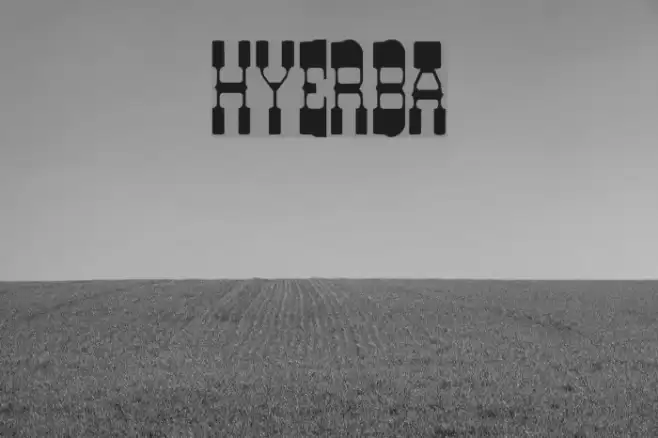
HYERBA Font
HYERBA Description
This font features a bold and striking design with a unique stencil-like appearance. The characters are constructed with solid, blocky shapes and have distinct cut-out sections, giving them a modern and industrial feel. The uppercase letters are particularly prominent, with a strong presence that commands attention. The font maintains a consistent weight throughout, ensuring readability while still offering a decorative flair. The overall style is both contemporary and edgy, making it suitable for projects that require a bold statement.
A bold, stencil-like font with a modern, industrial style from Uncategorized fonts.